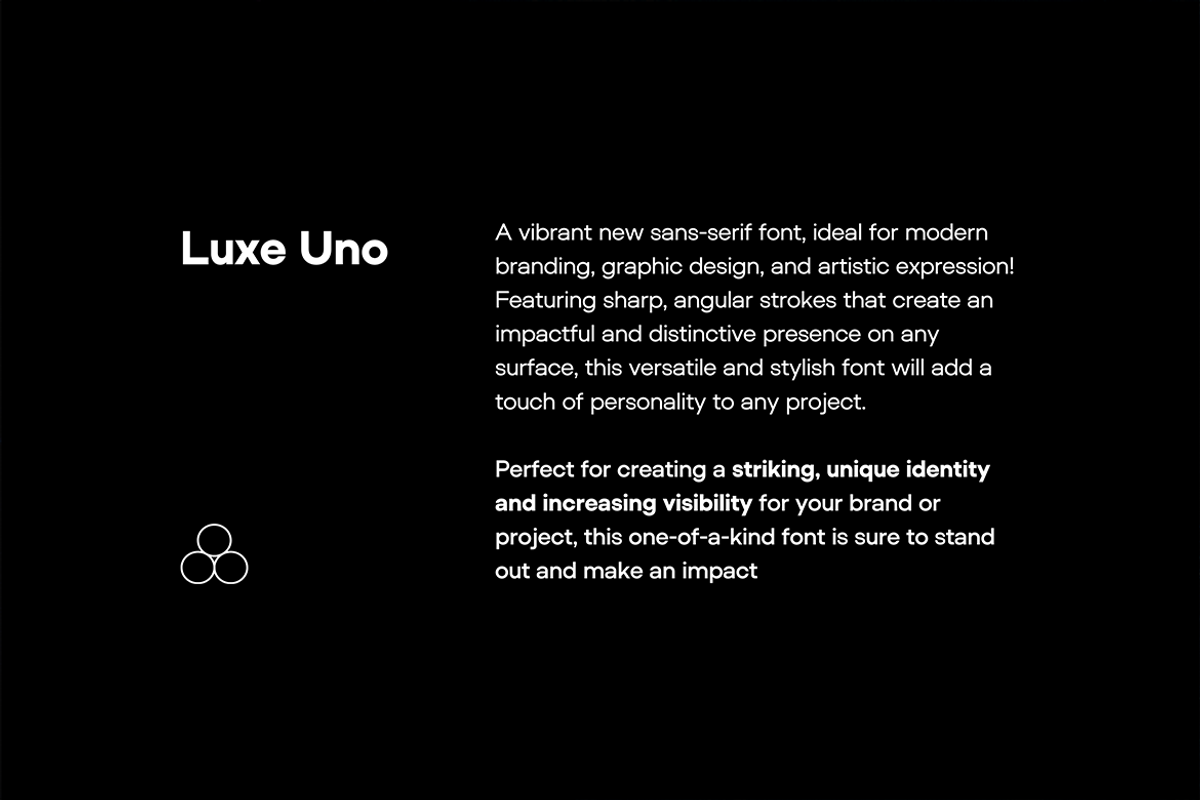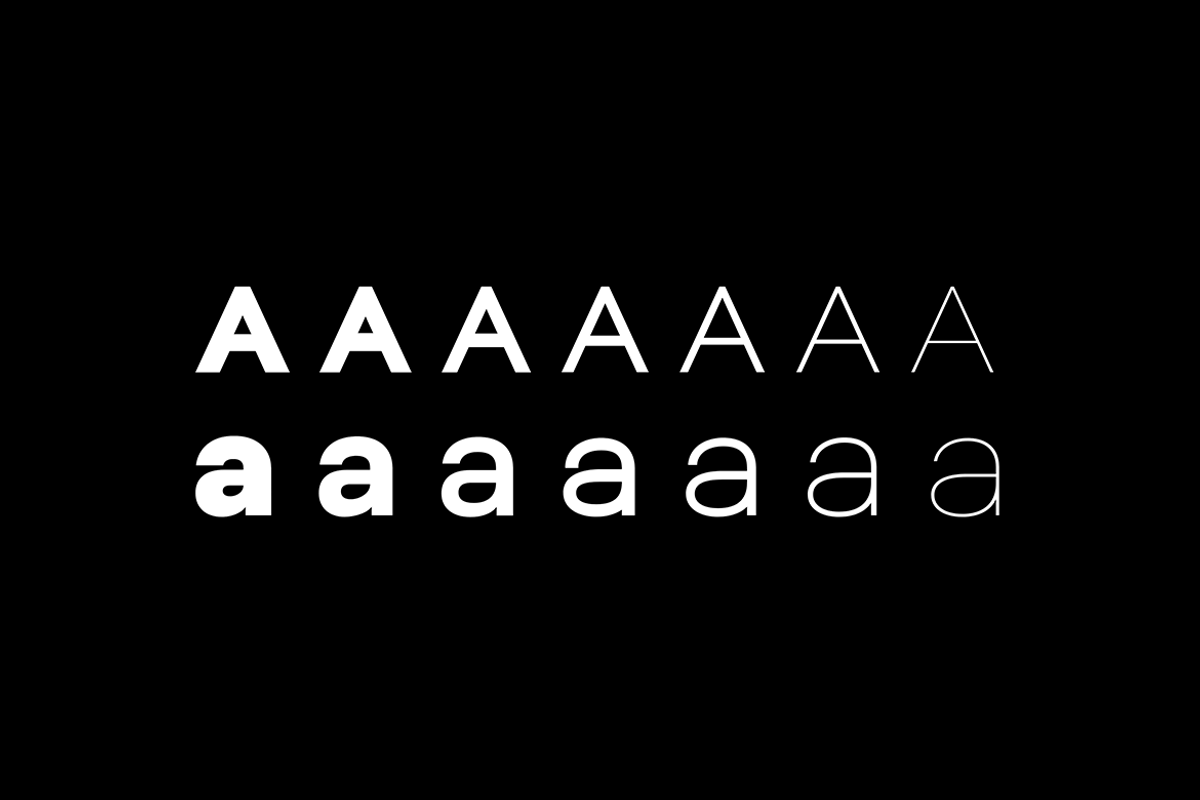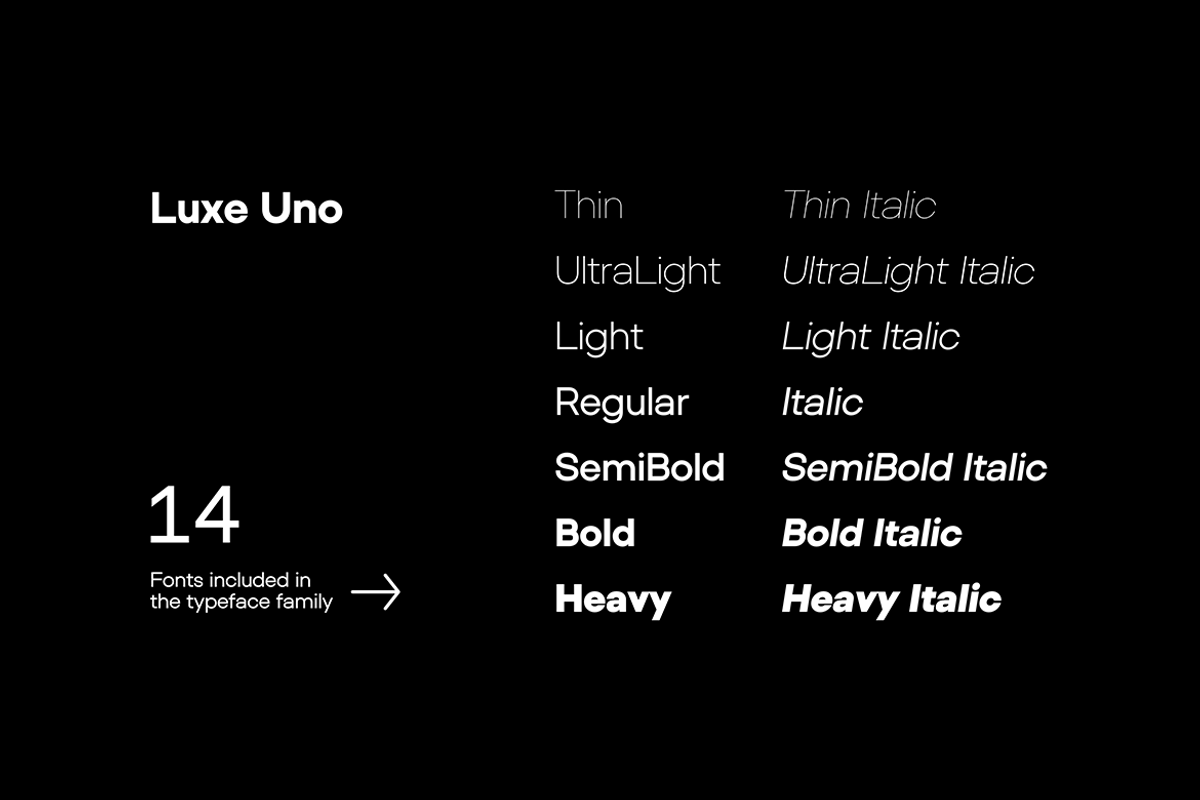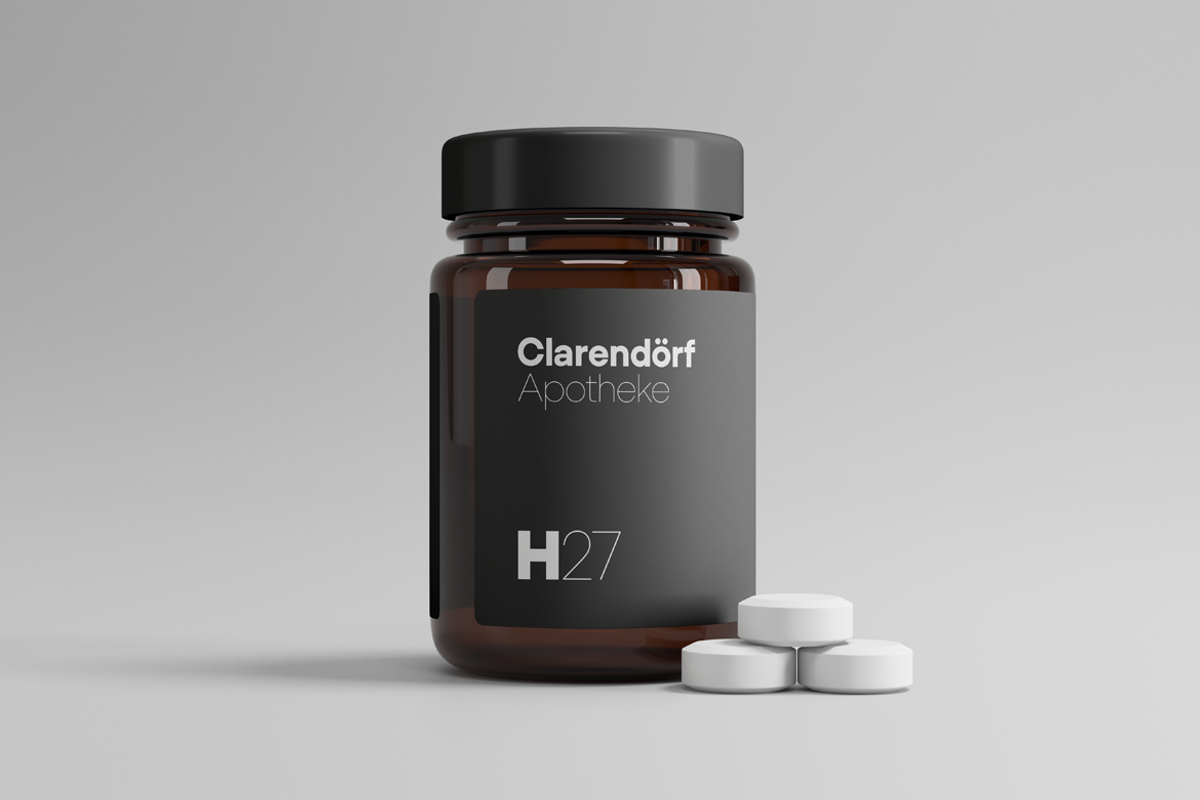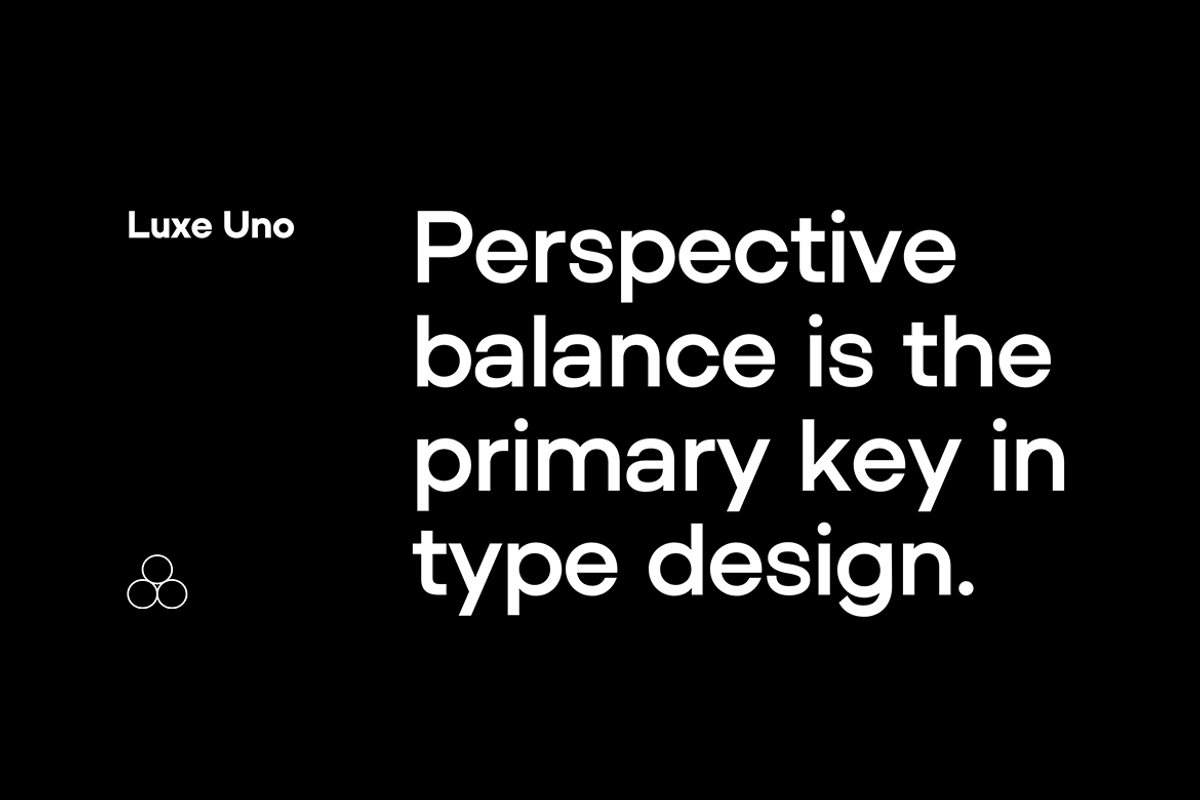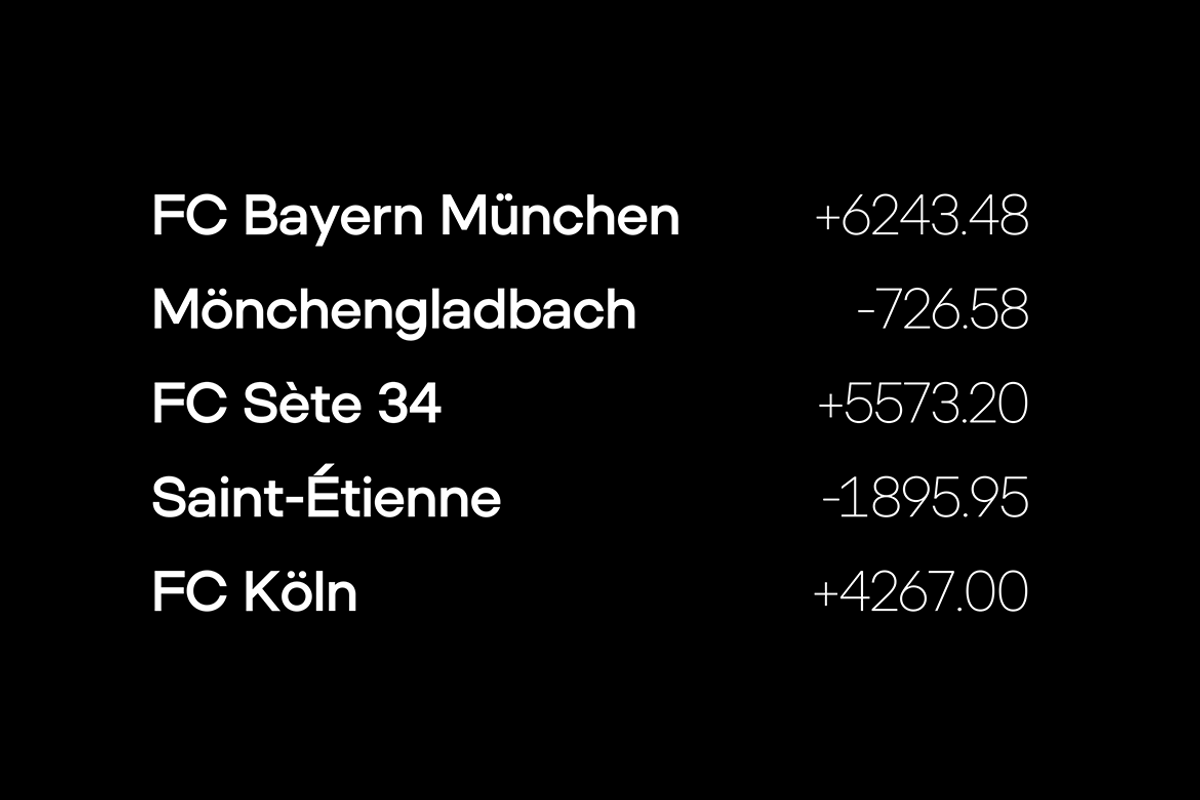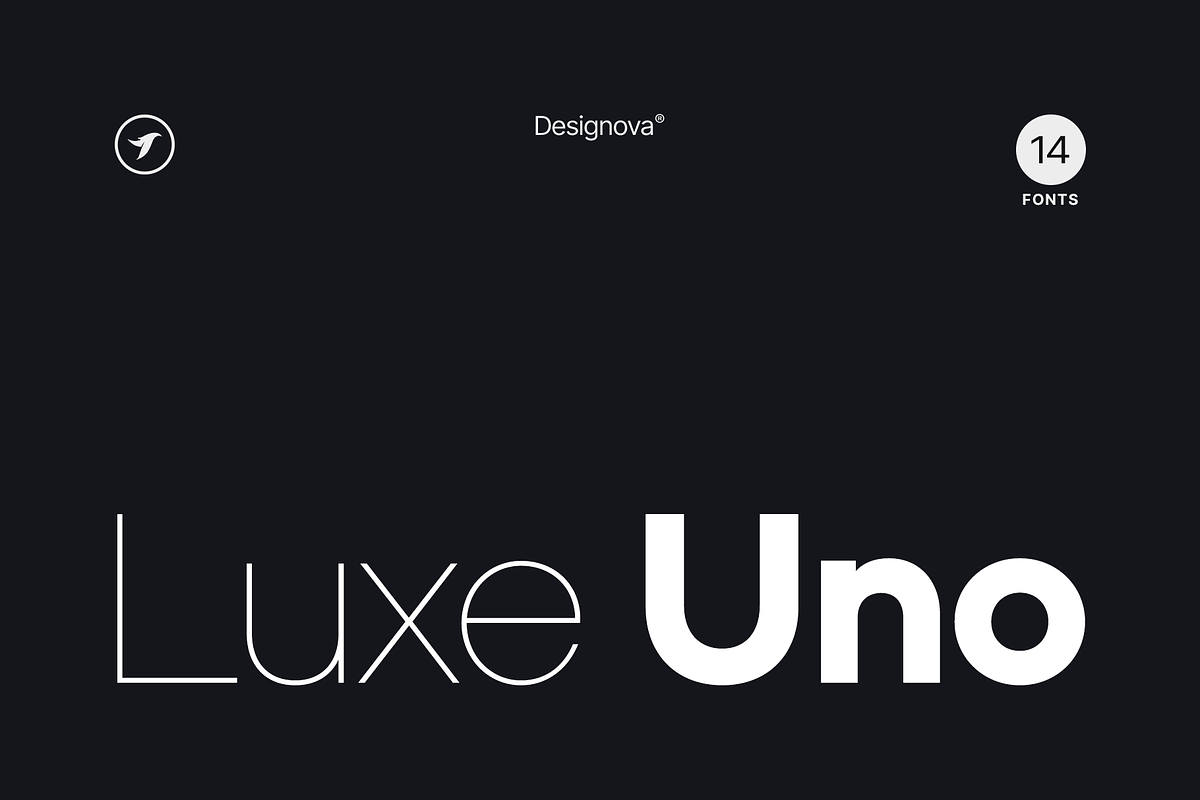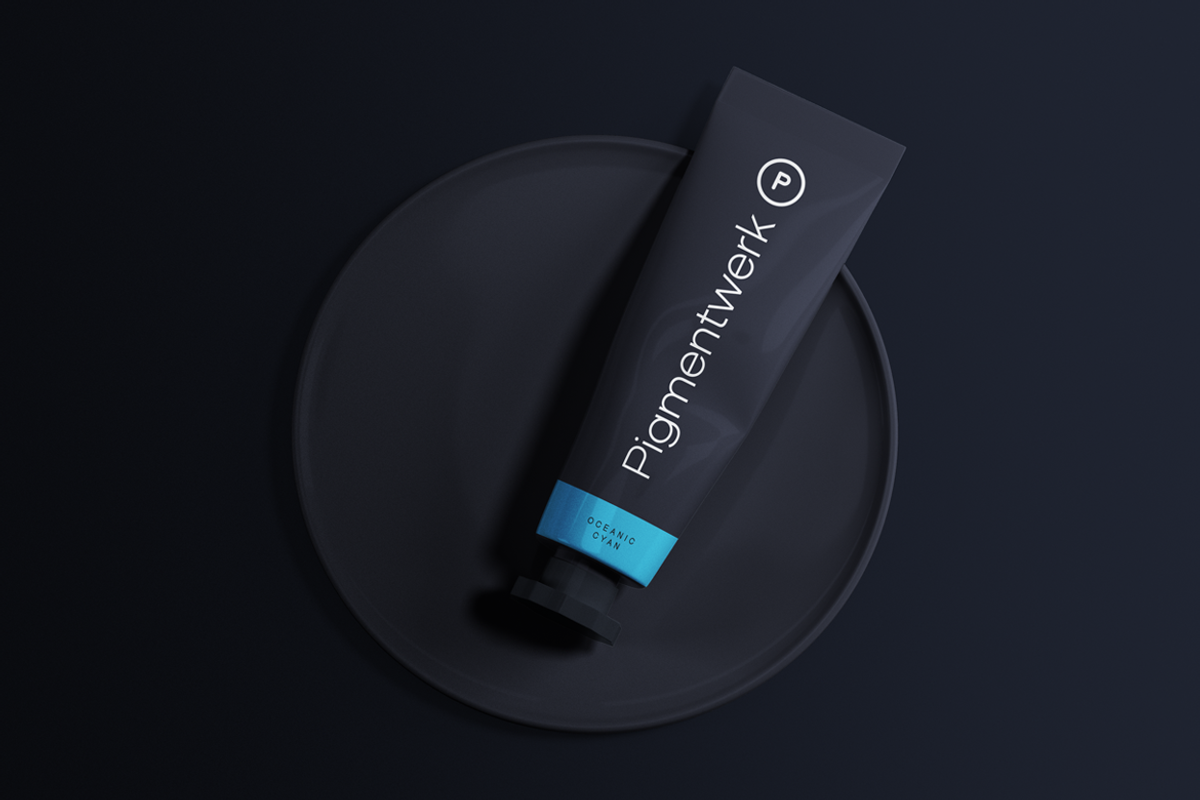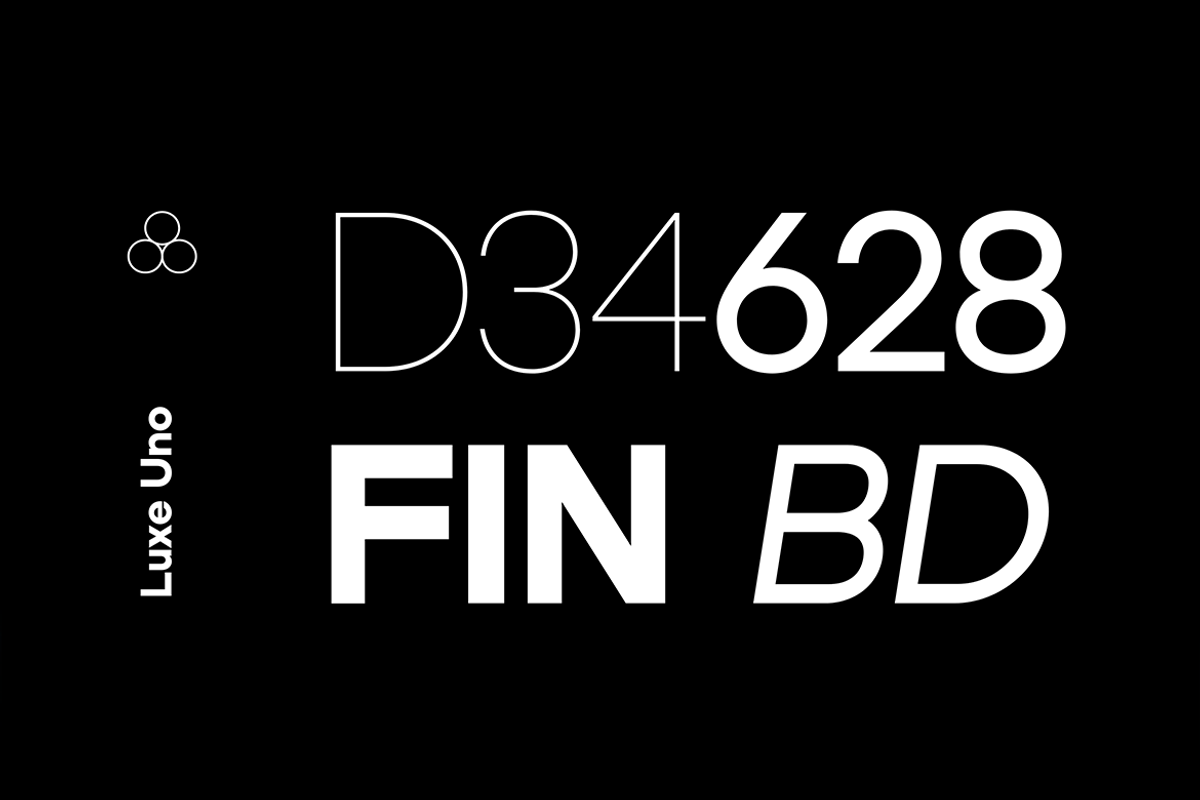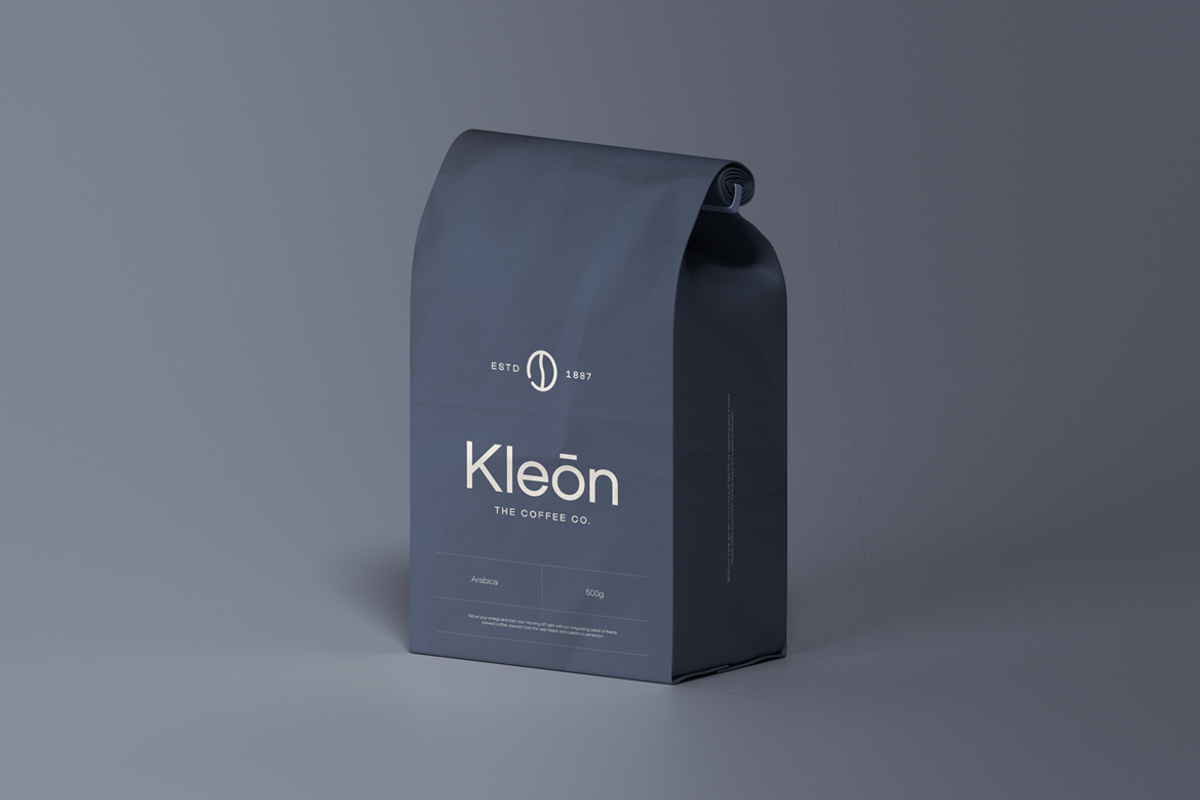
LUXE UNO - Modern Font Family
ABOUT THE TYPEFACE:
Luxe Uno is a modern Sans-Serif font family of 14 fonts with a clean and balanced design, and an appearance that is both timeless and enduring. Luxe Uno is the first typeface from the Uno class of font families - one of the most feature-rich fonts in our portfolio.
Luxe Uno font family is an excellent choice for creating various designs and textual representations. It's perfect for logotypes, branding, headlines, corporate identities, and marketing materials for web, digital, and print alike.
This typeface will be a great option for branding, logo/logotype design projects, marketing graphics, banners, posters, signage, corporate identities, and editorial design. Adding extra letter spacing will make this font the perfect choice for minimalist headlines and logotypes, as shown in the promo designs attached.
Luxe Uno font family includes an extensive collection of 14 fonts in total, with seven upright weights and Italic equivalents of all seven weights as follows:
- Thin
- Thin Italic
- UltraLight
- UltraLight Italic
- Light
- Light Italic
- Italic
- SemiBold
- SemiBold Italic
- Bold
- Bold Italic
- Heavy
- Heavy Italic
391 GLYPHS INCLUDED:
Handcrafted and designed with powerful OpenType features in mind, each weight includes extended language support with Western European, Central European, and South Eastern European sets. A total of 391 glyphs are available.
Scripts: Latin